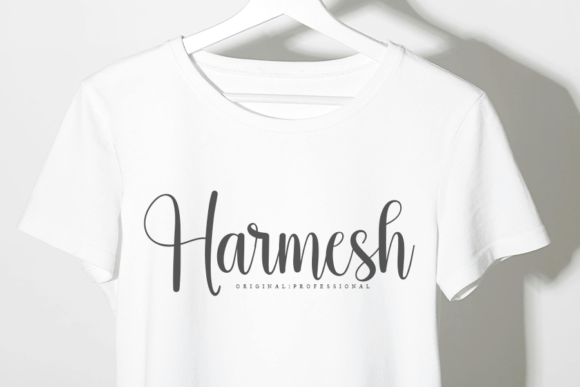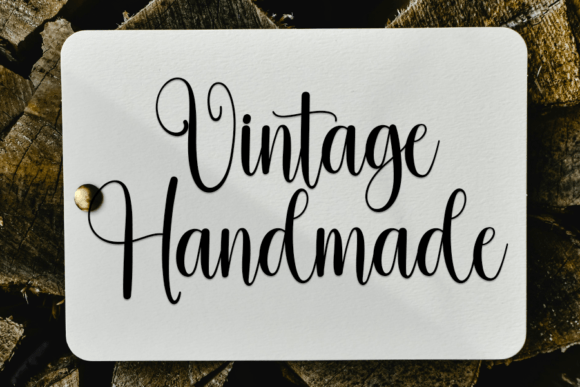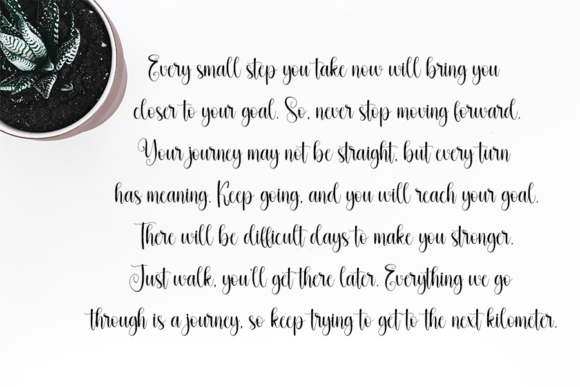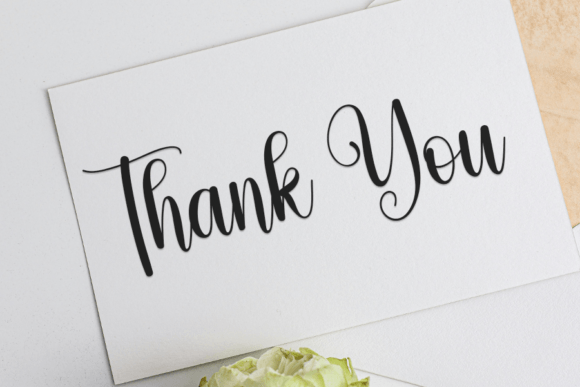
Gaily Font: Elevate Your Design with a Delicate Handwritten Touch
In the world of typography, fonts play a crucial role in conveying the tone and personality of a design. For those seeking a cool and unique aesthetic, the Gaily Font is an excellent choice. This delicate handwritten font is carefully crafted to add a touch of elegance and sophistication to various design projects. In this article, we’ll explore the features and uses of the Gaily Font, and why it’s a must-have for designers and crafters.
What is Gaily Font?
Gaily Font is a beautiful, handwritten typeface that exudes a sense of refinement and charm. Its delicate strokes and intricate details make it perfect for designs that require a personal touch. The font is designed to be versatile, allowing users to create a wide range of projects, from letters and invitations to food product labels and titles.
Key Features of Gaily Font
- Delicate Handwritten Style: Gaily Font boasts a unique, handwritten look that adds a touch of warmth and personality to any design.
- Versatile: This font can be used for various design projects, including letters, invitations, food products, titles, and more.
- Elegant and Sophisticated: Gaily Font’s intricate details and flowing strokes make it perfect for designs that require a level of sophistication.
- Easy to Read: Despite its delicate nature, Gaily Font is easy to read, making it suitable for body text and headings.
Uses of Gaily Font
Gaily Font’s versatility makes it an excellent choice for various design projects. Here are some ideas to get you started:
- Wedding Invitations: Add a touch of romance and elegance to your wedding invitations with Gaily Font.
- Food Product Labels: Use Gaily Font to create beautiful and eye-catching labels for your food products, such as baked goods, chocolates, or specialty teas.
- Stationery: Create personalized stationery, including letters, cards, and journals, with Gaily Font.
- Titles and Headings: Use Gaily Font to add a touch of sophistication to your titles and headings, perfect for blogs, magazines, or websites.
Why Choose Gaily Font?
With so many fonts available, why choose Gaily Font? Here are a few reasons:
- Unique and Exclusive: Gaily Font’s delicate handwritten style sets it apart from other fonts, making it a great choice for designers seeking a unique look.
- High-Quality: Gaily Font is carefully crafted to ensure high-quality output, making it perfect for print and digital designs.
Tips for Using Gaily Font
To get the most out of Gaily Font, here are some tips:
- Pair with Other Fonts: Experiment with pairing Gaily Font with other fonts to create a unique and visually appealing design.
- Adjust Font Size: Adjust the font size to achieve the desired effect, from delicate and subtle to bold and statement-making.
- Use for Headings and Titles: Use Gaily Font for headings and titles to add a touch of elegance and sophistication.
In conclusion, Gaily Font is a beautiful and versatile handwritten font that can elevate your design projects to the next level. Its delicate strokes, intricate details, and elegant style make it perfect for a wide range of designs, from letters and invitations to food product labels and titles. With its ease of use, high-quality output, and unique style, Gaily Font is a must-have for designers and crafters seeking a cool and unique aesthetic.